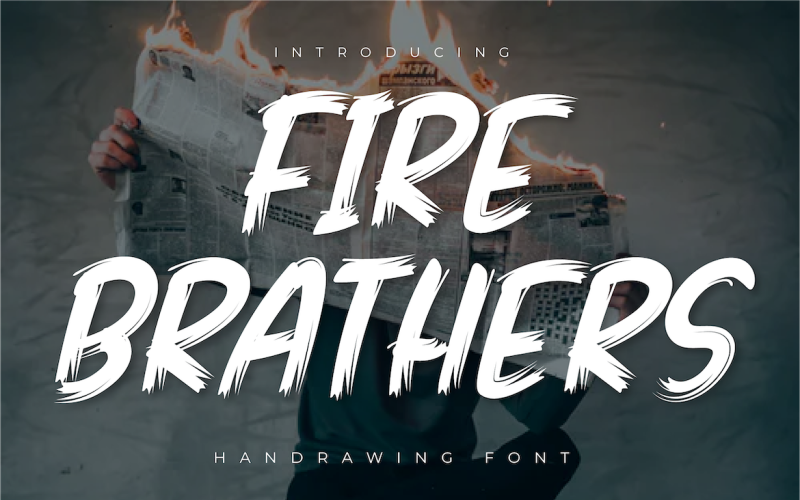
Fire Brathers Font
Fire Brathers is an incredibly unique display font. Masterfully designed to become a true favorite, this font has the potential to bring each of your creative ideas to the highest level!
This font will turn any creative idea into a true piece of art, this font is perfect for strong text with displays for a wide variety of branding, advertising, posters, banners, packaging, headlines, outdoor activity, websites, logo design, and more.